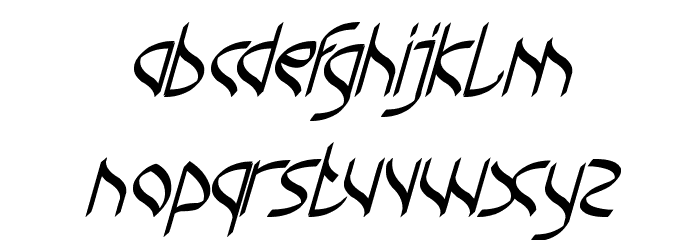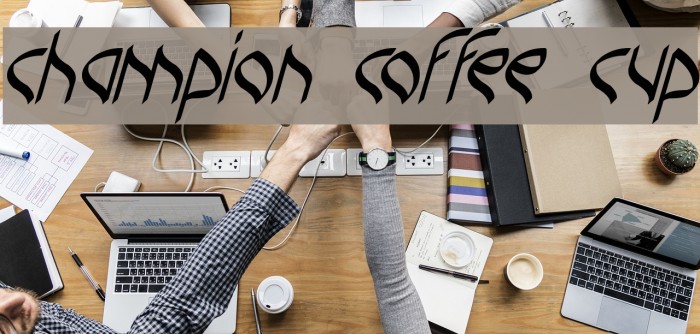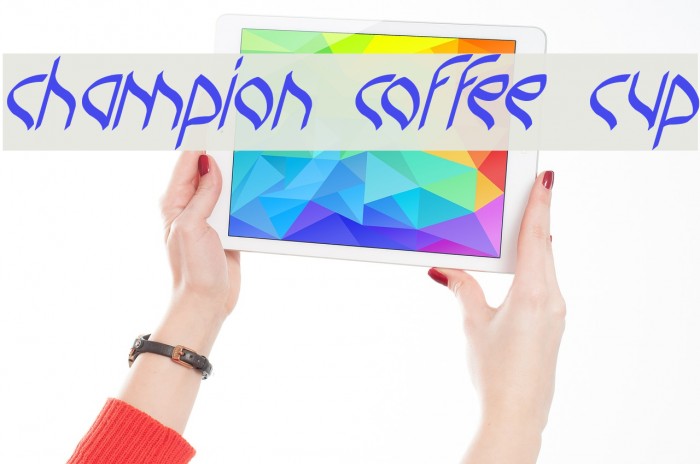
champion coffee cup Font
This font features a dynamic and angular design, characterized by sharp edges and a flowing script-like appearance. The letters exhibit a sense of motion and energy, with each character having a unique, slightly slanted form. The strokes are bold and pronounced, giving the font a strong visual impact. The overall style is reminiscent of calligraphy, yet with a modern twist, making it suitable for projects that require a touch of elegance and flair. The uppercase and lowercase letters maintain a consistent style, ensuring readability while adding an artistic touch.
A dynamic, angular font with a modern calligraphic style.
- Proposed Projects: Ideal for branding, logos, posters, and creative projects that require a bold, artistic touch.